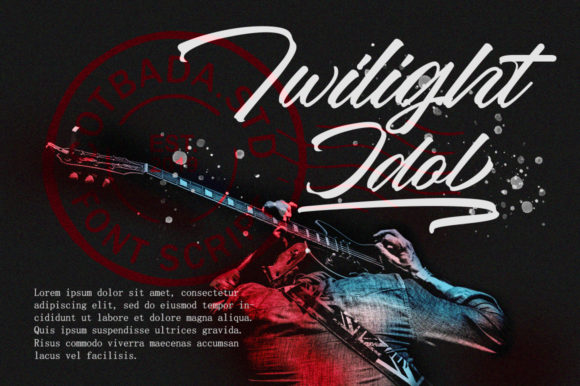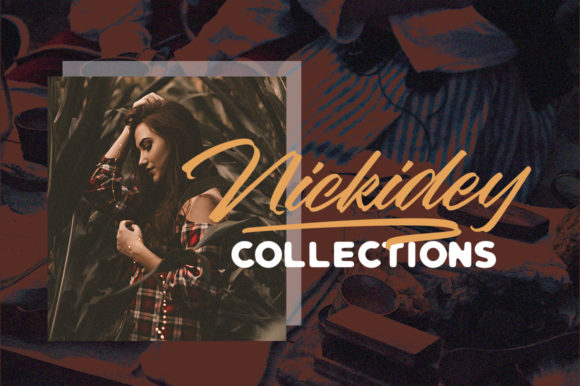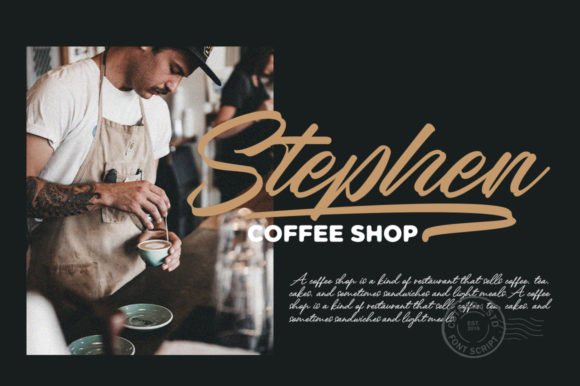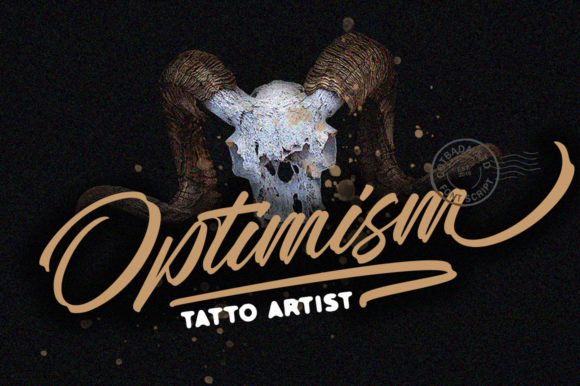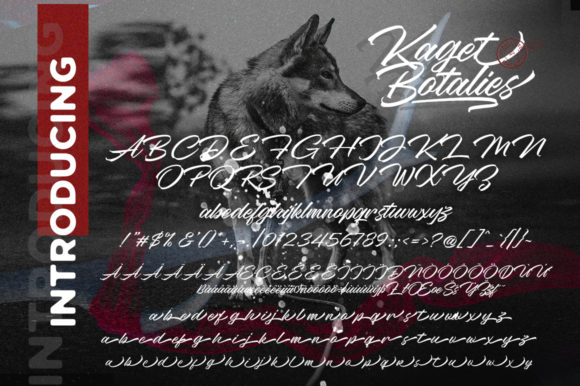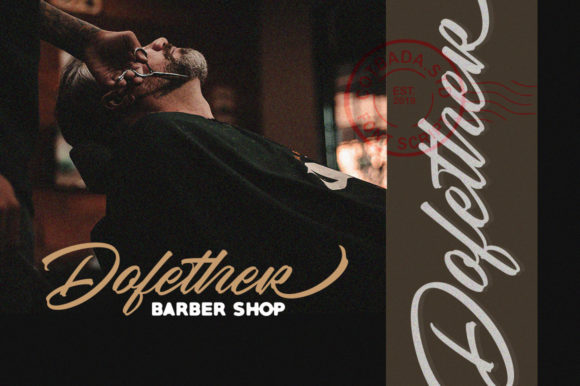
The Perfect Blend of Style and Creativity
Have you ever stared at a blank page, waiting for inspiration to strike? For designers, this moment is all too familiar. But what if that blank page held the key to unlocking your next big project? The Botalies Kagetan Script Font is here to spark that creative flame and take your designs to the next level.
This unique, modern handwritten font is the perfect tool for adding a touch of personality to your work. Whether you’re crafting logos, labels, or packaging design, the Botalies Kagetan Script Font’s versatility makes it an essential addition to any designer’s toolkit. Its handwritten style brings a touch of warmth and character to even the most mundane designs, making it a valuable asset for any creative project.
Botalies Kagetan Script Font Key Features
- Font Style: Script Font, ideal for creative and artistic designs
- Unique Characteristics: Distinctive, elegant, and artistic script style, making it perfect for wedding invitations, logos, and other creative projects
Botalies Kagetan Script Font Review
I’ve had the chance to play around with the Botalies Kagetan Script Font, and I must say it’s a beautiful script font. ✨ The fluid, cursive lines evoke a sense of elegance and sophistication, making it perfect for titles, headings, and any other design element that needs a touch of whimsy.
One of the things I love about this font is its versatility. ✨ It works well for both digital and print designs, and its unique style sets it apart from more common script fonts. The font also includes a wide range of language support, making it a great choice for international designs.
- ⚠️ The font may be too ornate for some designs, potentially overwhelming the content.
- ⚠️ The font’s complexity may make it difficult to use for certain design elements, such as body text or large blocks of text.
Overall, I’m impressed with the Botalies Kagetan Script Font. It’s a beautiful, unique font that can add a touch of elegance to any design. While it may have some limitations, I think it’s definitely worth considering for the right project.
The Botalies Kagetan Script Font is ideal for creating:
– Custom wedding invitations
– Personalized gift tags
– Creative quotes and posters
– Vintage-inspired designs